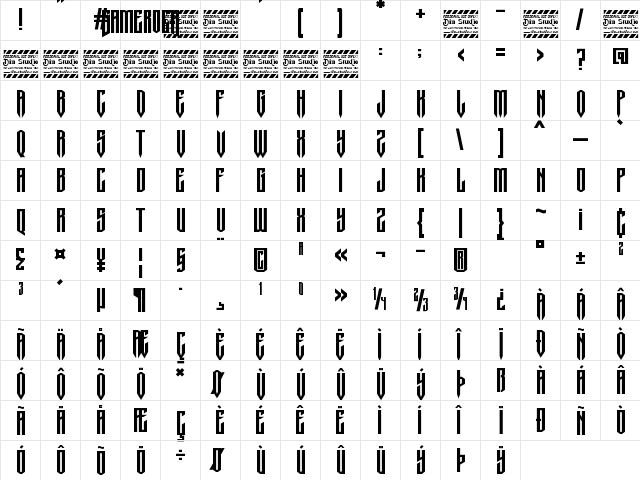
Gamerock Personal Use Regular
| Designer | Donis Miftahudin |
Design Context for Gamerock Personal Use Typeface
Gamerock Personal Use is a composed and adaptable typeface that performs quietly and consistently across a wide range of design contexts.